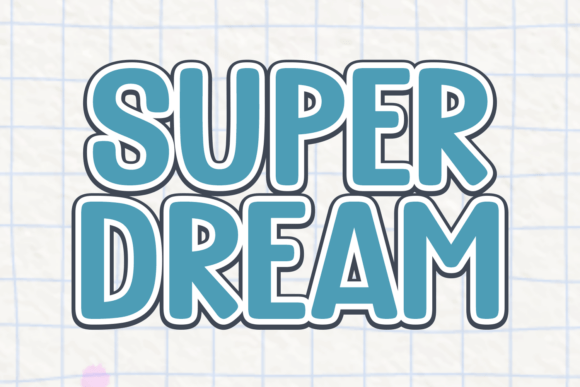
Blue Notes Font: A Whimsical and Authentic Hand-Drawn Typography Experience
Typography is an essential aspect of design, and the right font can make all the difference in creating a lasting impression. In the world of typography, there exist numerous fonts that cater to diverse design needs. However, if you’re looking for a font that stands out with its unique charm, then “Blue Notes” is an excellent choice. This article will delve into the world of “Blue Notes,” a whimsical, fancy, and authentically hand-drawn font that has captured the hearts of designers and brands alike.
What is Blue Notes Font?
Blue Notes is a meticulously crafted, hand-drawn font that boasts smooth, rounded contours, making it a perfect choice for a variety of mediums. Its unique design elements set it apart from other fonts, giving it a distinctive charm that is hard to resist. The font’s creator aimed to design a typography experience that would be both whimsical and authentic, catering to the needs of brands looking for a unique identity.
Key Features of Blue Notes Font
- Hand-drawn with love and care: Each letter in Blue Notes has been carefully crafted by hand, giving it a personal touch that sets it apart from machine-generated fonts.
- Smooth, rounded contours: The font features smooth, rounded edges that give it a friendly and approachable feel, making it perfect for brands that want to convey a sense of warmth and approachability.
- Whimsical and fancy: Blue Notes has a playful and fancy vibe, making it ideal for designs that require a touch of elegance and sophistication.
- Authentically unique: The font’s unique design elements ensure that it stands out from the crowd, giving brands a distinctive identity that is hard to forget.
Use Cases for Blue Notes Font
Blue Notes is a versatile font that can be used in a variety of mediums, including:
- Branding and logos: The font’s unique charm makes it an excellent choice for brands looking to create a lasting impression.
- Invitations and events: Blue Notes’ whimsical and fancy vibe makes it perfect for invitations, weddings, and other events that require a touch of elegance.
- Packaging and labels: The font’s smooth, rounded contours make it an excellent choice for packaging and labels that require a friendly and approachable feel.
- Digital media: Blue Notes can be used in digital media, including social media graphics, blog posts, and website designs.
Benefits of Using Blue Notes Font
Using Blue Notes font offers numerous benefits, including:
- Unique identity: The font’s distinctive design elements ensure that brands stand out from the crowd.
- Emotional connection: Blue Notes’ friendly and approachable feel helps create an emotional connection with the target audience.
- Versatility: The font can be used in a variety of mediums, making it an excellent addition to any design arsenal.
- Ease of use: Blue Notes is easy to read and understand, making it perfect for designs that require clear communication.
Tips and Tricks for Using Blue Notes Font
To get the most out of Blue Notes font, here are some tips and tricks to keep in mind:
- Pair it with contrasting fonts: Pair Blue Notes with contrasting fonts to create visual interest and hierarchy.
- Experiment with colors: The font’s smooth, rounded contours look great with a variety of colors, so don’t be afraid to experiment.
- Use it consistently: Consistency is key when using Blue Notes font, so use it across all design elements to create a cohesive look.
In conclusion, Blue Notes font is a whimsical, fancy, and authentically hand-drawn typography experience that offers a unique charm and versatility. Its smooth, rounded contours make it perfect for a variety of mediums, from branding and logos to digital media and packaging. By incorporating Blue Notes into your design arsenal, you’ll be able to create a lasting impression and establish a distinctive identity for your brand.